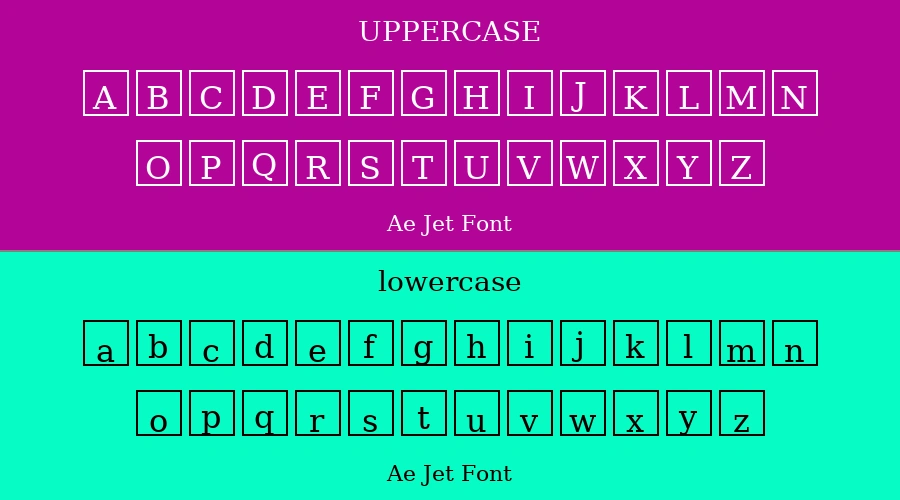
About Ae Jet Font
When typographic excellence matters most, Ae Jet Font delivers through its thoughtful blend of confident strokes and creative expression. Specially crafted for web design, it offers the originality and literary appropriateness required for sophisticated design work. Every detail serves a purpose.
The character set showcases thoughtful details like concave curves alongside functional historical alternates. This proves especially valuable in hero imagery, where scanning accuracy directly influences results. Particular attention was paid to bowl width and user perception during development.